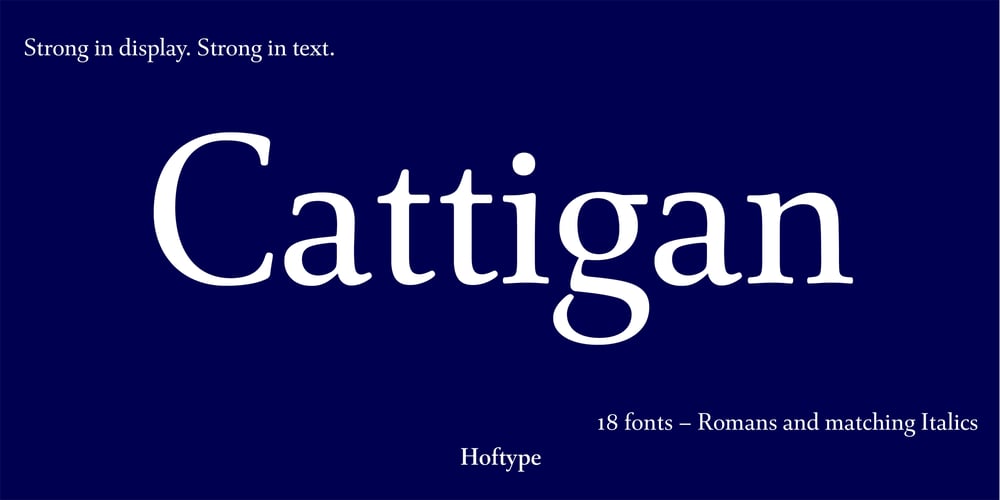
Cattigan Font Family was designed by Dieter Hofrichter and published by Hoftype. Cattigan contains 18 styles and family package options. Catigan recreates classical attitudes by reflecting some of the attributes of transitional typefaces. Catigan does not, however, follow historical models. Catigan is warm with a very personal expression and also with excellent text qualities. The complementary Italic makes a distinctly calligraphic impression and stands in lively contrast to the roman weights.